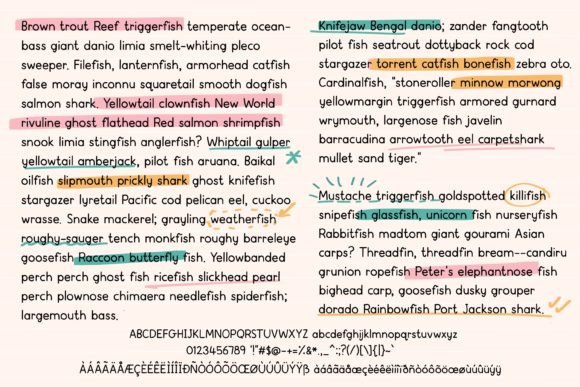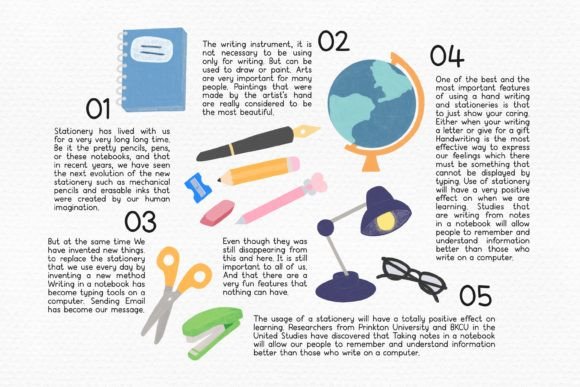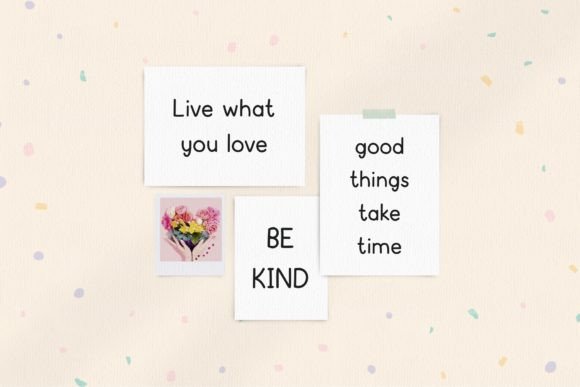
Introduction to Margie Font
Have you ever found yourself staring at a blank page, pencil hovering over paper, searching for the perfect font to bring your creative project to life? For designers and crafty enthusiasts alike, the right font can make all the difference in setting the tone and aesthetic of a project. One such font that’s sure to spark your imagination is the Margie Font.
This neat, simple, and cute display font is the perfect design resource for any creative endeavor. Whether you’re writing a blog post, designing a logo, or crafting digital invitations, Margie Font is an excellent choice. With its high-quality design and transparent background, it’s easy to use and customize to suit your needs.
- Unique characteristics: Margie Font boasts a unique, elegant design with subtle flair, making it perfect for a wide range of creative projects.
Honest Review: Margie Font
As a designer, I’m always on the lookout for high-quality fonts that can elevate my creative projects. I recently came across the Margie Font, and I was excited to put it to the test.
One of the things that stood out to me about the Margie Font was its transparent background, making it easy to layer over images and other design elements. I also appreciated the free download option, which is always a bonus for designers on a budget.
Here are some of the things that work well about the Margie Font:
- ✨ High-quality design with a unique aesthetic
- ✨ Easy to use and customize
- ✨ Perfect for a variety of creative projects, from logos to wedding invitations
- ⚠️ Limited character set, which may not be suitable for extended text
- ⚠️ Not ideal for body text, as it can be a bit too ornate
Overall, I’m impressed with the Margie Font and would definitely recommend it for designers looking for a unique and high-quality design resource.
Margie Font can be used for a variety of creative projects, including graphic design, digital art, and web design. It is particularly useful for creating invitations, posters, and other promotional materials.